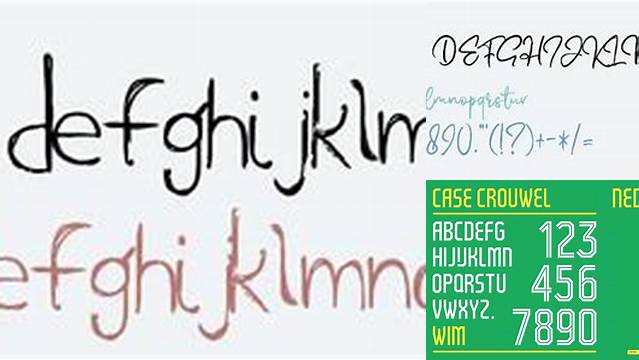
Case Crouwel Font: Free Download & Usage Guide
Are you guys looking to add a touch of modernist flair to your design projects? Look no further! The Case Crouwel font, inspired by the legendary Dutch graphic designer Wim Crouwel, is a fantastic choice. This font embodies the principles of the New Alphabet and Gridnik design, offering a unique and striking aesthetic. In this article, we'll dive deep into the Case Crouwel font, exploring its history, characteristics, availability for free download, and how you can effectively use it in your projects. Let’s get started!
What is Case Crouwel Font?
When we talk about Case Crouwel font, we're referring to a typeface that pays homage to the iconic work of Wim Crouwel, a Dutch graphic designer renowned for his contributions to modernist typography. Crouwel, a key figure in the Dutch design scene, was known for his experimental and grid-based approach to typography. His designs often pushed the boundaries of legibility in pursuit of a unique visual expression, and the Case Crouwel font family embodies this spirit perfectly. It's more than just a font; it's a piece of design history, a tribute to an innovator who dared to challenge conventional typographic norms.
The essence of Case Crouwel lies in its construction. Each character is meticulously crafted using a grid system, resulting in a geometric and almost architectural appearance. This grid-based approach, characteristic of Crouwel's work, gives the font a distinctive and recognizable look. The letterforms are often simplified, with sharp angles and clean lines dominating the design. This minimalist aesthetic makes Case Crouwel a popular choice for projects that aim to convey a sense of modernity and precision. Think of it as the typographic equivalent of a well-structured blueprint – every line, every angle, is deliberate and purposeful.
The font family typically includes various weights and styles, offering designers a range of options to suit different needs. From light and airy versions to bold and impactful ones, Case Crouwel can be adapted to fit a variety of design contexts. This versatility is one of its key strengths, making it suitable for everything from headlines and posters to body text and branding materials. It's a font that can command attention when used in large sizes, yet remain legible and elegant in smaller settings. The goal is to create a cohesive and visually appealing typographic landscape.
Beyond its aesthetic qualities, Case Crouwel also carries a certain historical significance. By using this font, designers are not only choosing a visually striking typeface but also engaging with the legacy of Wim Crouwel and the broader modernist design movement. It's a way of paying respect to a design pioneer and incorporating a piece of design history into contemporary work. So, when you select Case Crouwel for a project, you're not just choosing a font; you're making a statement about your appreciation for design heritage and your commitment to innovative typography. It adds a layer of depth and meaning to your work, connecting it to a rich history of typographic experimentation and excellence.
History and Inspiration Behind the Font
To truly appreciate Case Crouwel font, you need to understand the history and inspiration that shaped its creation. This font is deeply rooted in the modernist design movement, particularly the Dutch design scene of the mid-20th century. Wim Crouwel, the font’s namesake and primary inspiration, was a leading figure in this movement, known for his innovative and often controversial approach to typography. His work challenged traditional typographic conventions, embracing a grid-based system and geometric forms that pushed the boundaries of legibility.
Crouwel's design philosophy was heavily influenced by the principles of the New Alphabet, an experimental typeface he designed in 1967. The New Alphabet was a radical departure from traditional letterforms, featuring simplified, geometric shapes intended to address the limitations of early digital typesetting technology. While the New Alphabet itself was not widely adopted due to its challenging readability, it served as a crucial stepping stone in Crouwel's exploration of typographic form. It demonstrated his willingness to experiment and challenge established norms, paving the way for future typographic innovations.
The Gridnik design system, another key influence on Case Crouwel, was a modular grid system that Crouwel used extensively in his work. This system provided a framework for creating structured and visually consistent layouts, reflecting the modernist emphasis on order and clarity. The Gridnik approach is evident in the letterforms of Case Crouwel, where each character is carefully constructed within a grid, resulting in a geometric and almost architectural appearance. This meticulous attention to structure and proportion is a hallmark of Crouwel's design style and a defining characteristic of the font.
Case Crouwel can be seen as a contemporary interpretation of Crouwel's design principles, adapting his experimental approach for modern design contexts. It captures the essence of his innovative spirit, offering designers a typeface that is both visually striking and historically significant. By using Case Crouwel, designers are not only choosing a font but also engaging with the legacy of a design pioneer and the broader modernist movement. It's a way of honoring Crouwel's contribution to typography and incorporating his design philosophy into contemporary work. So, when you select Case Crouwel for a project, you're making a statement about your appreciation for design history and your commitment to pushing the boundaries of typographic expression. It adds a layer of intellectual and historical depth to your design choices.
Key Characteristics of Case Crouwel Font
Understanding the key characteristics of Case Crouwel font is crucial for leveraging its unique aesthetic in your design projects. This typeface is not just another font; it's a statement, a nod to modernist design principles, and a testament to the power of geometric forms in typography. So, what exactly makes Case Crouwel stand out? Let's break down its defining features.